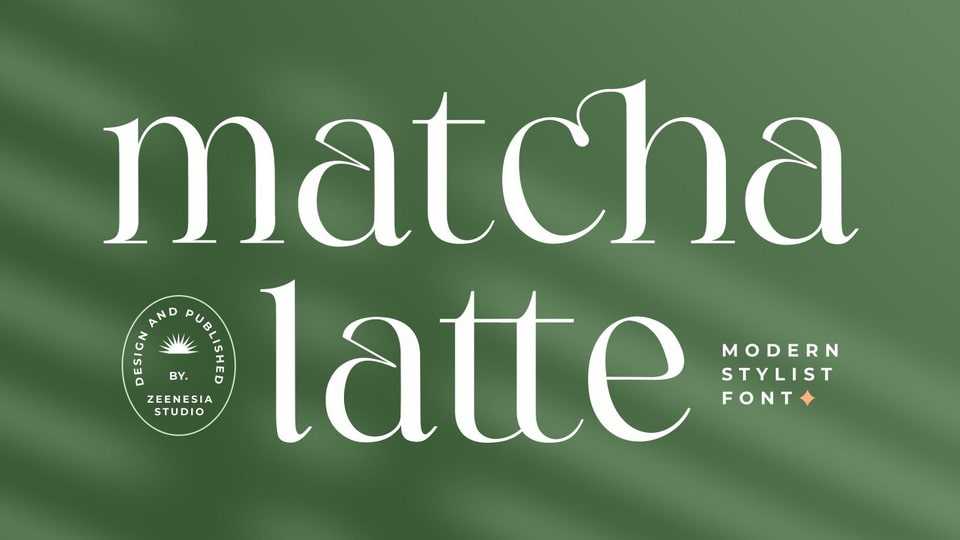
Download Matcha Latte font, a beautiful and feminine serif typeface specially crafted to give a romantic and lovely look to your designs. Matcha Latte is suitable for branding identity, editorial projects, logos and more.
Designer: Zeenesia Studio